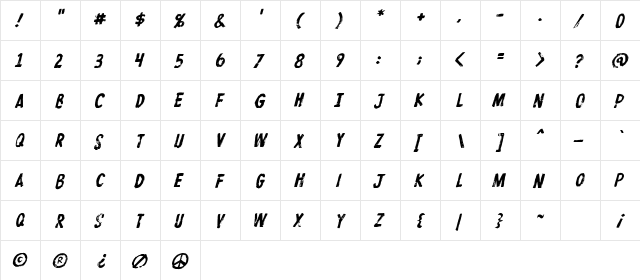
ProtestPaint BB Italic
| Foundry | Nate Piekos. Blambot.com |
| Designer | Nate Piekos |
Design Context for ProtestPaint BB Typeface
ProtestPaint BB is a composed and adaptable typeface that performs quietly and consistently across a wide range of design contexts. The dynamic lean of this cut emphasises speed and emphasis in any layout.
Pro Tip: Use ProtestPaint BB for emphasis, pull quotes, and subheadings where its slanted energy can add rhythm to the layout.